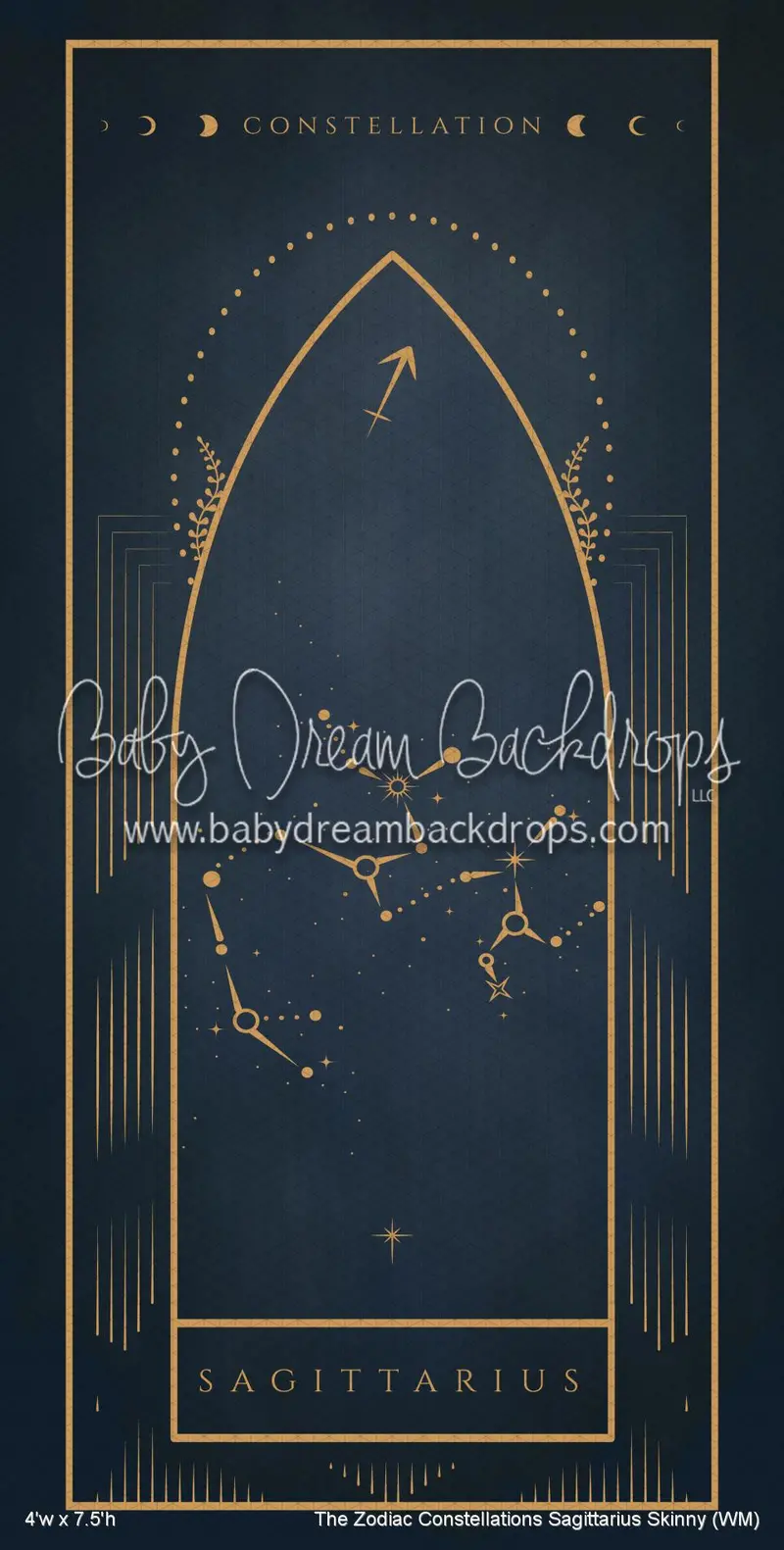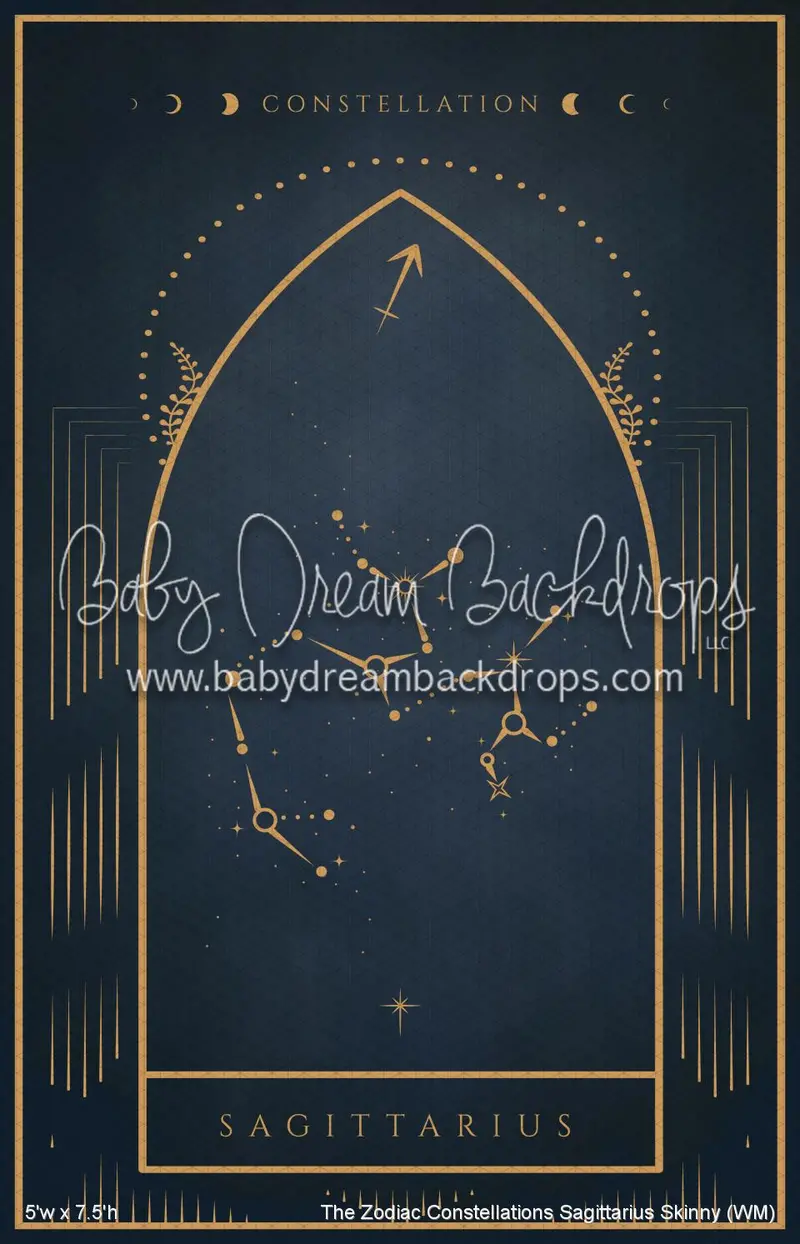
Sagittarius Zodiac Constellations Font – Skinny Weight (Webfont)
Unlock the magic of the stars with The Zodiac Constellations Collection by Whitney Minten!
Start with The Zodiac Nocturne available in Standard, Skinny, Sweep or X Drop as your bold, moody backdrop. Then, personalize the scene by layering in your client’s Zodiac sign for a touch of celestial storytelling. Want to add even more dimension? Pair it with The Zodiac Constellations Skinny on the opposite side for a look that’s balanced, immersive, and written in the stars.